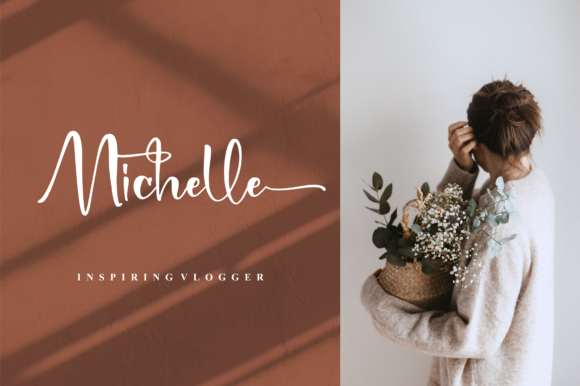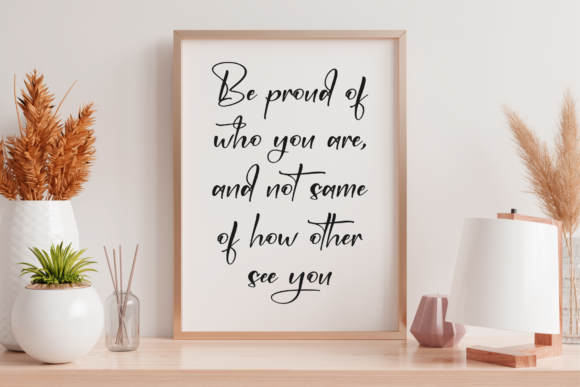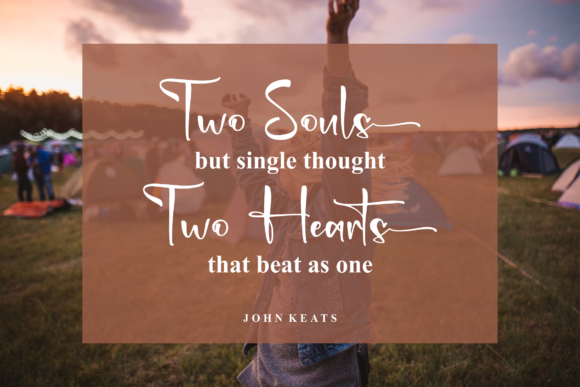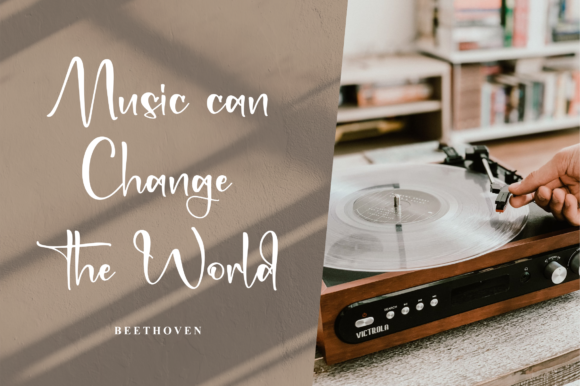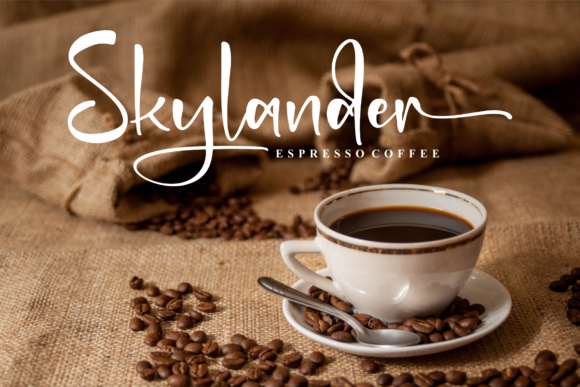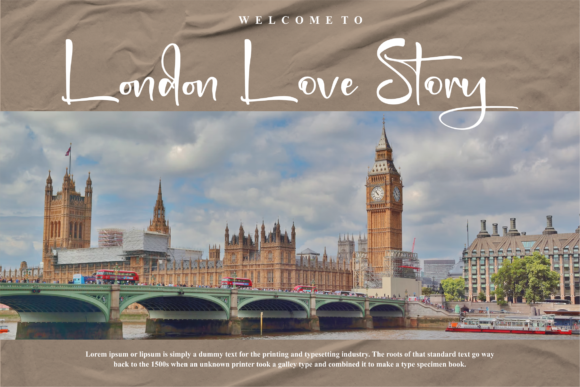
The Elegance of Dignhaty Font: A Designer’s Delight
I still remember the design project that led me to discover the stunning Dignhaty font. I was working on a luxury brand’s branding materials, and I needed a script font that exuded elegance and sophistication. After hours of searching, I stumbled upon Dignhaty, and it instantly became my go-to choice. Its impeccable form, beautiful swashes, and contemporary atmosphere made it the perfect fit for my project. In this article, I’ll share my experience with Dignhaty, its features, and how to make the most of this gorgeous font.
An Honest Review of Dignhaty Font
What I Love About Dignhaty ✨
- 💫 Elegant script font with a timeless classic calligraphy feel
- 🔥 PUA encoded for easy access to glyphs and swashes
- 🌟 Contemporary atmosphere that suits luxury brands and high-end designs
- 👍 Impeccable form and beautiful lettering
While Dignhaty is an amazing font, there are a few things to keep in mind:
- 🤔 Some users might find the font a bit too ornate for certain projects
- ⚠️ Not suitable for body text or long paragraphs due to its script nature
The Story Behind Dignhaty Font
Dignhaty was created with the goal of bringing timeless classic calligraphy to modern designs. Its designer aimed to craft a font that exudes elegance, sophistication, and luxury, while still feeling contemporary and fresh. The result is a stunning script font that has captured the hearts of designers and crafters alike.
Q: What is PUA encoding, and how does it benefit Dignhaty font?
A: PUA (Private Use Area) encoding allows for easy access to glyphs and swashes, making it simpler to use the font’s advanced features.
Q: Is Dignhaty font suitable for body text or long paragraphs?
A: No, Dignhaty is a script font and not suitable for body text or long paragraphs. It’s best used for headings, titles, and short text elements.